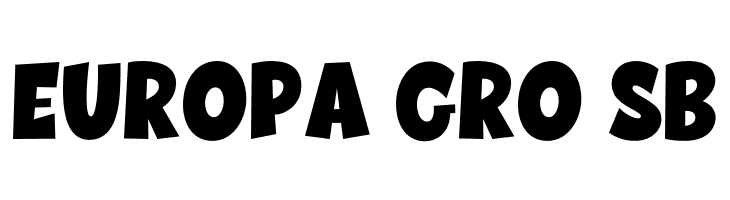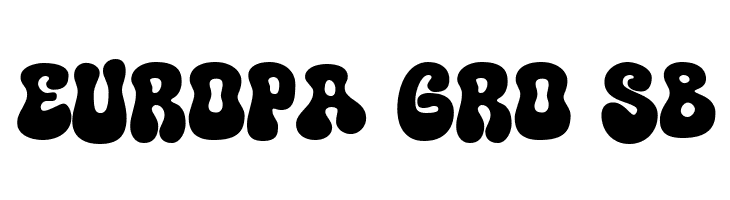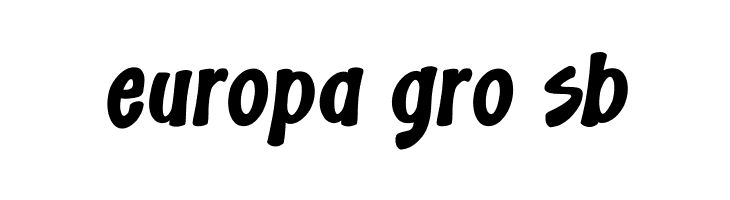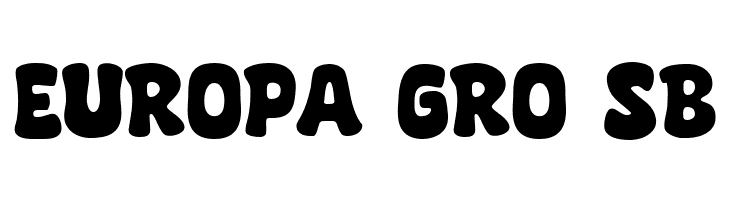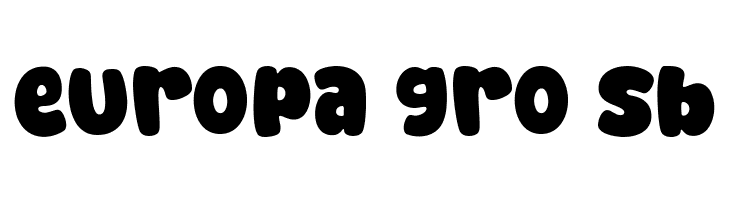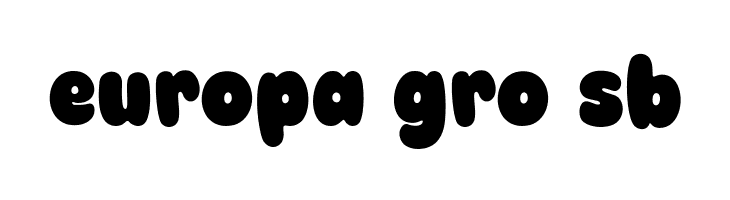
A playful, rounded font with bold, consistent strokes and a friendly appearance.
A playful, rounded font with bold, consistent strokes and smooth curves.
( Fonts by Agam Rahmadan )
A playful, hand-drawn font with rounded, bold characters.
( Fonts by Gilang Ternadho )
A playful, hand-drawn font with a casual and friendly vibe.
( Fonts by NJ Studio )
A bold, playful font with a hand-drawn, textured style.
( Fonts by Nur Solikh )
A bold, playful script font with fluid, connected characters and elegant curves.
( Fonts by Nur Solikh )
A bold, handwritten font with a playful and modern style.
( Fonts by Niskala Huruf )
A playful, rounded font with a bold and friendly appearance.
( Fonts by Niskala Huruf )
A playful, bold font with rounded edges and a bubbly appearance.
( Fonts by ONG Type )
A playful, hand-drawn font with tall, narrow letters and a whimsical style.
( Fonts by Wildan Type )
A bold, playful font with a hand-drawn, energetic style.
( Fonts by Luluk Surotul )
An elegant script font with flowing, cursive letters and classic flourishes.
( Fonts by Pizzadude )
A bold, rounded font with a playful and friendly style.
( Fonts by Eric Samossa )
A playful, whimsical font with tall, narrow letters and smooth, rounded strokes.
( Fonts by Holydie Studio )
A playful, bold font with rounded, thick strokes and a whimsical style.
( Fonts by fsuarez913 )
A bold, rounded font with a playful and whimsical style.
( Fonts by fsuarez913 )
A playful, bold font with rounded edges and a bubbly appearance.
( Fonts by AV Type )
A bold, dynamic font with playful, exaggerated strokes and a cartoonish style.
( Fonts by fsuarez913 )
A bold, playful font with rounded, bubbly characters.
( Fonts by BLKBK Fonts OFF SITE )
A bold, playful, handwritten-style font with thick, rounded strokes.
( Fonts by fsuarez913 )
A bold, playful font with rounded characters and a retro vibe.
( Fonts by fsuarez913 )
A playful, bubble-like font with bold, rounded characters ideal for fun and informal designs.
( Fonts by fsuarez913 )
A playful, bold font with rounded, bubbly characters perfect for fun and energetic designs.
( Fonts by fsuarez913 )
A bold, rounded font with a playful and whimsical style.
A bold, playful font with thick, rounded characters and a whimsical style.
( Fonts by fsuarez913 )
A bold, playful font with rounded, whimsical characters ideal for energetic designs.
( Fonts by fsuarez913 )
A bold, playful font with cartoonish, exaggerated strokes.
( Fonts by fsuarez913 )
A chunky, rounded, playful display font with a bubbly style.
( Fonts by fsuarez913 )
A playful, bold font with rounded, bubbly characters and a hand-drawn feel.
( Fonts by fsuarez913 )
A playful, bold font with rounded edges and a modern, friendly style.
( Fonts by fsuarez913 )
A bold, playful font with rounded edges and a strong visual impact.